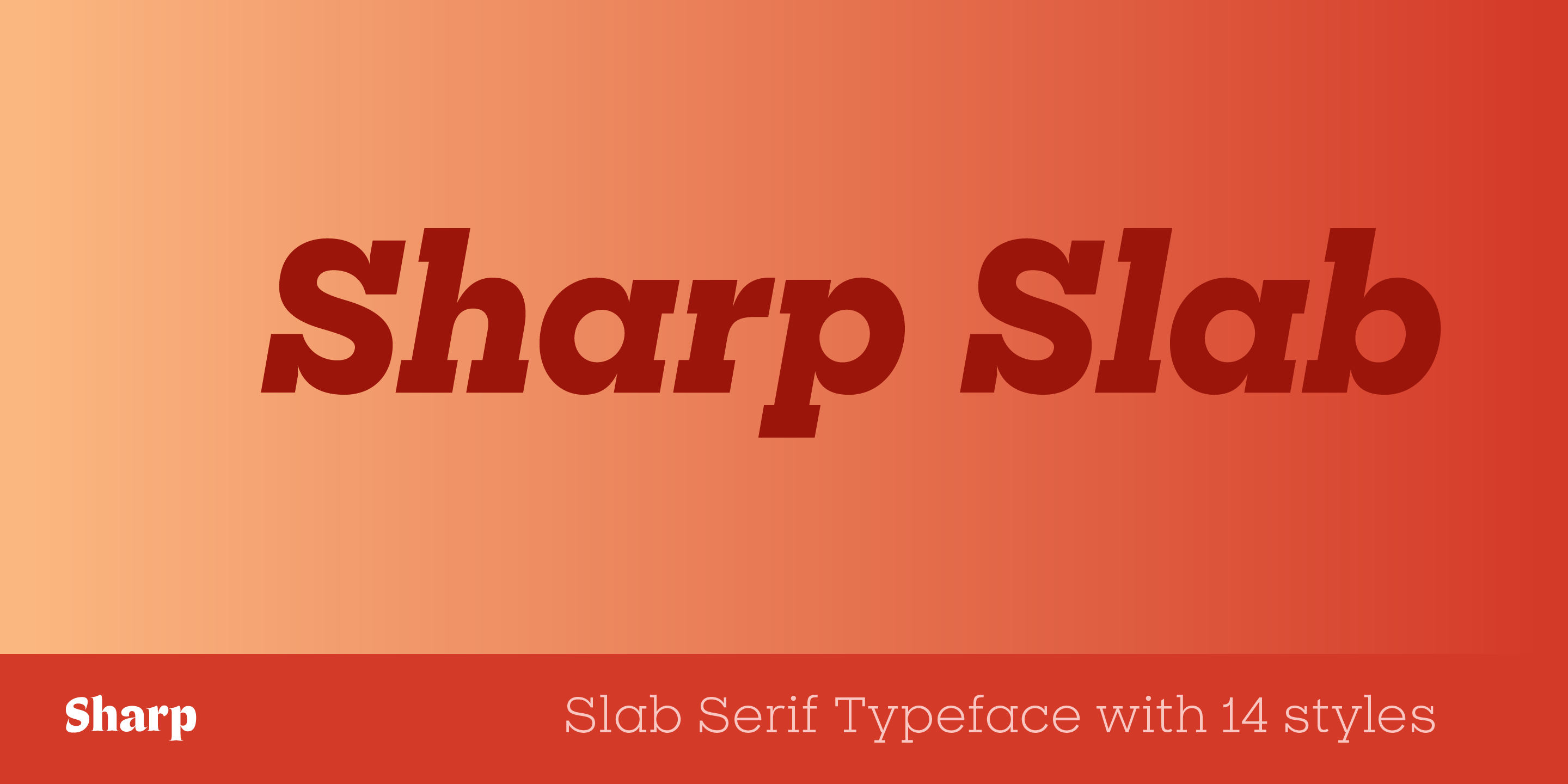
The Sharp Slab Font is perfect for modern editorial headlines, contemporary magazine layouts, bold poster designs, architectural firm branding, tech startup logos, cutting-edge advertising campaigns, urban signage projects, and industrial design presentations. This striking typeface excels in projects for design agencies, construction companies, modern art galleries, technology firms, and businesses requiring strong, impactful visual communication with contemporary edge and professional authority.
What makes the Sharp Slab Font exciting is its perfect fusion of traditional slab serif robustness with razor-sharp modern precision. The font features distinctively crisp letterforms with bold, geometric serifs and clean angles that create immediate visual impact and commanding presence. Its contemporary interpretation of classic slab serif design makes it ideal for brands seeking to balance heritage reliability with cutting-edge innovation. The font's sharp details and structured geometry convey confidence, precision, and forward-thinking professionalism.
The Sharp Slab Font family includes precision-crafted variations: Thin, Light, Regular, Medium, Bold, Black, and Ultra versions. Each weight maintains the font's sharp character while offering different levels of visual intensity and design flexibility. The family also features condensed and extended versions, plus alternative character sets that enhance contemporary design projects requiring typographic versatility.
Whether you're developing modern brand identities, creating bold editorial designs, or designing contemporary marketing materials, the Sharp Slab Font Free Download provides the ultimate solution for projects requiring sharp, impactful typography. This exceptional typeface brings cutting-edge precision to professional design work, making it an indispensable resource for designers who demand both strength and sophistication in their typographic choices.